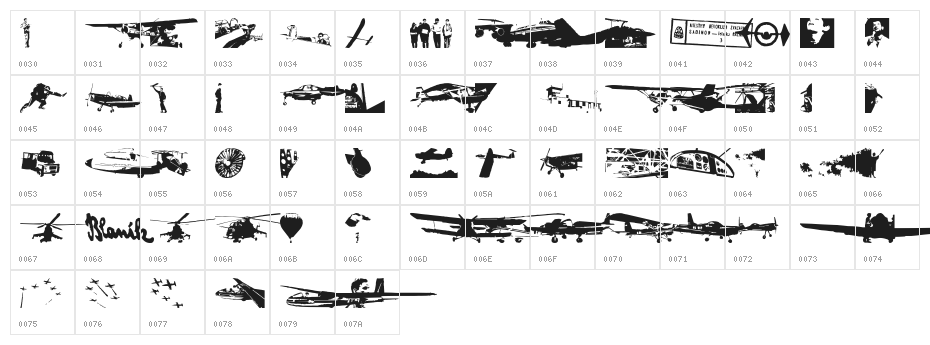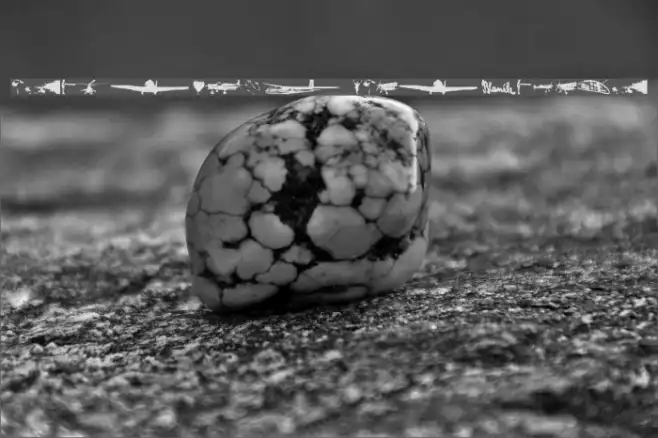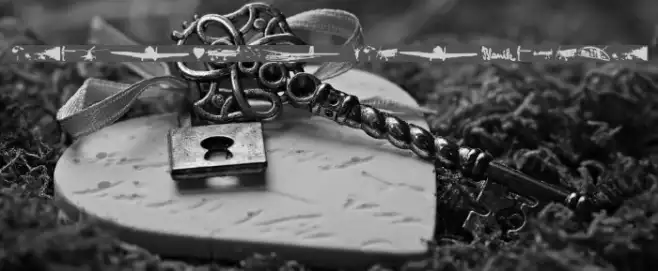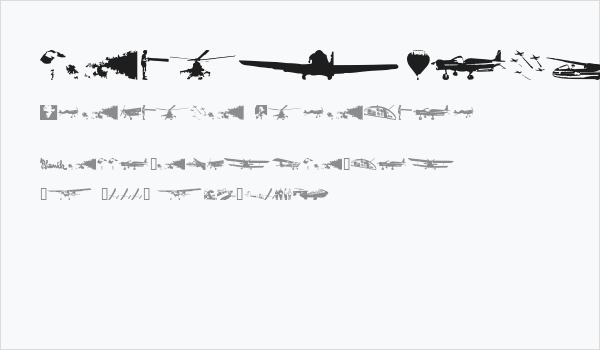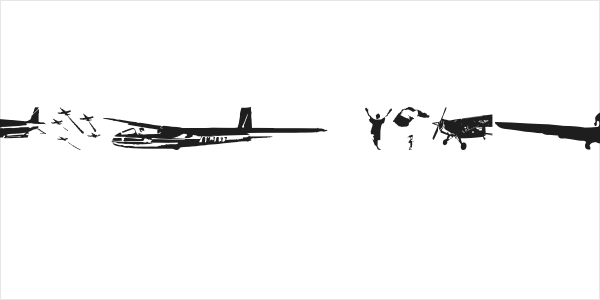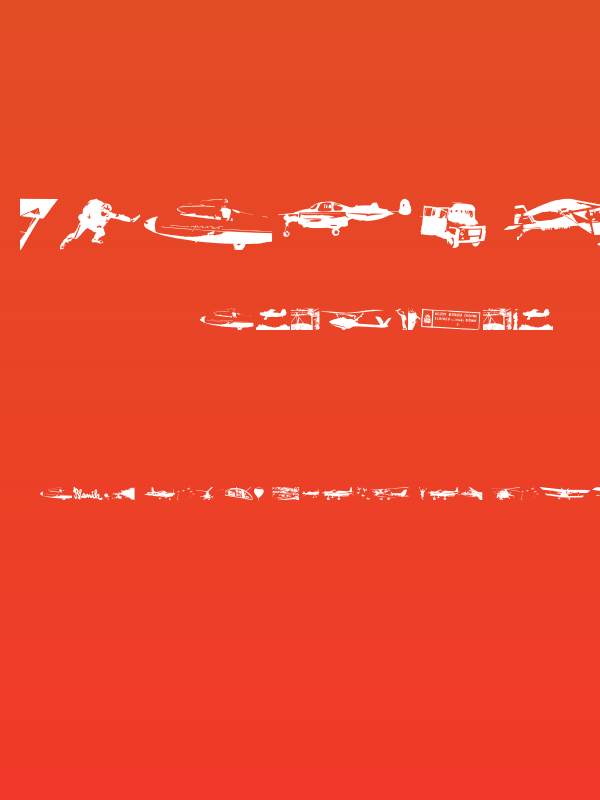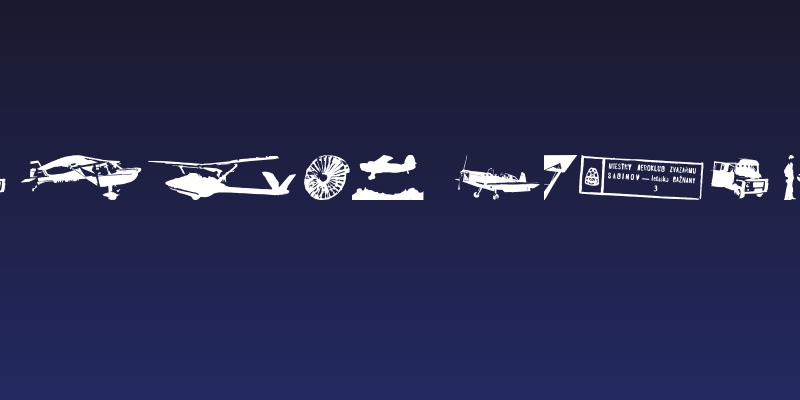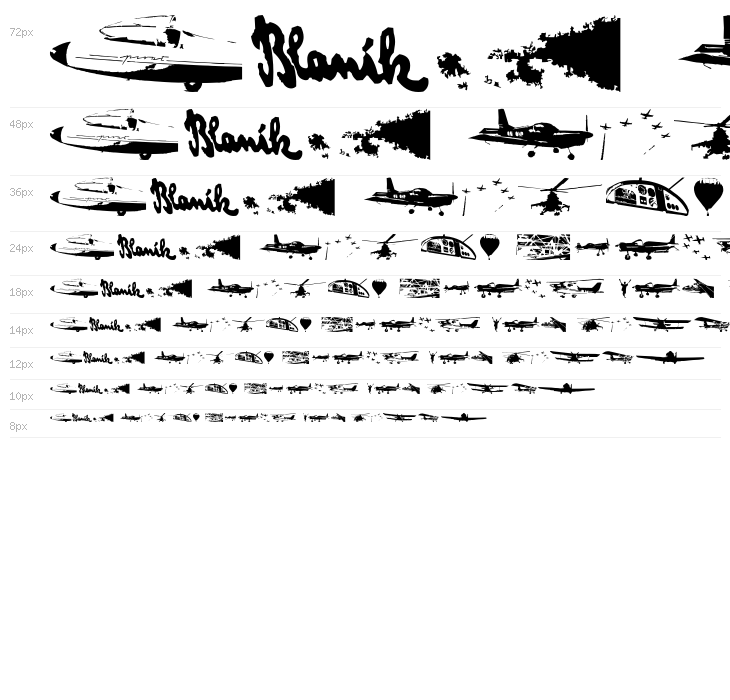
letiskovy flashtrace Font
letiskovy flashtrace Description
A highly decorative and illustrative font composed of various aviation-themed silhouettes, including airplanes, helicopters, pilots, and related objects. Each character is represented by a unique aviation-related image, making it more of a pictorial or dingbat font rather than a traditional alphabetic typeface.
| Overall Style | Decorative, Thematic, Illustrative |
| Use Case | Logos, Headlines, Themed graphics, Educational visuals |
| Proposed Projects | Posters, event flyers, educational materials, themed party invitations, scrapbooking, and aviation museum displays. |